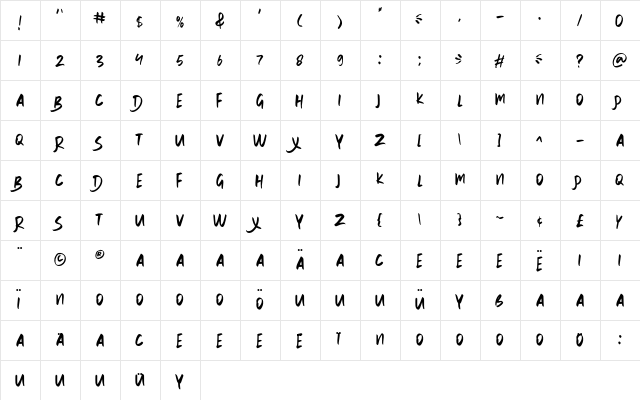
WILLDOM Regular
| Foundry | Vultype Co |
| Designer | Vultype Co |
Design Context for WILLDOM Typeface
WILLDOM is a composed and adaptable typeface that performs quietly and consistently across a wide range of design contexts.